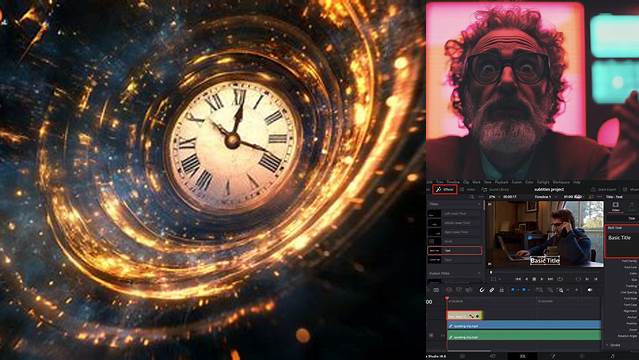
Install Fonts In DaVinci Resolve 19: A Step-by-Step Guide
Adding custom fonts to DaVinci Resolve 19 can significantly enhance your video editing projects, allowing you to create unique and visually appealing titles, lower thirds, and graphics. In this comprehensive guide, we will walk you through the step-by-step process of installing fonts on your operating system and making them accessible within DaVinci Resolve 19. We'll also cover troubleshooting tips and best practices for managing your fonts effectively. So, if you're ready to elevate your video editing game with personalized typography, let's dive in!
Why Add Custom Fonts to DaVinci Resolve 19?
Before we get into the how, let's talk about the why. Why should you bother adding custom fonts to DaVinci Resolve 19? The answer is simple: custom fonts can drastically improve the visual appeal and professionalism of your video projects. Think about it – the default fonts that come with most software are, well, default. They're functional, sure, but they often lack the personality and flair that can make your videos stand out. Adding custom fonts allows you to:
- Create a Unique Brand Identity: Using specific fonts consistently across your projects helps establish a strong brand identity. Whether you're creating content for a business, a YouTube channel, or personal projects, unique typography can make your videos instantly recognizable.
- Enhance Visual Appeal: Different fonts evoke different moods and styles. A clean, modern sans-serif font might be perfect for a corporate video, while a playful script font could be ideal for a vlog or a children's video. By choosing the right font, you can enhance the overall visual appeal of your project and better convey your message.
- Improve Readability: Not all fonts are created equal when it comes to readability. A well-chosen font can make your text clear and easy to read, even in fast-paced videos or when overlaid on busy backgrounds. This is especially important for titles, subtitles, and lower thirds.
- Stand Out from the Crowd: In a sea of videos using the same default fonts, custom fonts can help you stand out and grab your audience's attention. This is crucial for making a lasting impression and keeping viewers engaged.
- Access a Wider Range of Styles: DaVinci Resolve 19 comes with a decent selection of fonts, but it's just the tip of the iceberg. By adding custom fonts, you gain access to a vast library of styles, from elegant and classic to bold and modern, allowing you to find the perfect font for any project.
So, now that you understand the importance of custom fonts, let's get to the nitty-gritty of how to add them to DaVinci Resolve 19. Trust me, guys, it's easier than you might think!
Step-by-Step Guide to Adding Fonts to DaVinci Resolve 19
The process of adding fonts to DaVinci Resolve 19 involves two main steps: installing the font on your operating system and then ensuring that DaVinci Resolve recognizes it. Here's a detailed breakdown of each step:
Step 1: Download and Install Your Desired Fonts
- MyFonts: A large marketplace for both free and premium fonts.
- Creative Market: Offers a wide variety of fonts, graphics, and other design resources, often with unique and creative options.
Once you've found a font you like, download it to your computer. Fonts typically come in one of two file formats:
- TTF (TrueType Font): The most common font format, compatible with both Windows and macOS.
- OTF (OpenType Font): A more advanced font format that offers better support for complex typography features.
Both TTF and OTF fonts work well with DaVinci Resolve 19, so don't worry too much about the format. Once you've downloaded the font file (it's usually in a ZIP archive), follow these steps to install it on your operating system:
On Windows:
- Extract the ZIP archive: Right-click on the downloaded ZIP file and select "Extract All..."
- Locate the font files: Open the extracted folder and find the TTF or OTF font files.
- Install the font: There are two ways to install the font:
- Method 1: Right-click on the font file and select "Install".
- Method 2: Double-click on the font file to open a preview window, then click the "Install" button at the top.
- Wait for the installation to complete: Windows will install the font, and it will be available for use in all your applications.
On macOS:
- Extract the ZIP archive: Double-click on the downloaded ZIP file to extract its contents.
Adding custom fonts to DaVinci Resolve 19 is a fantastic way to personalize your video projects and create a unique visual identity. By following the steps outlined in this guide, you can easily install new fonts and use them to enhance your titles, graphics, and more. Remember to troubleshoot any issues that arise and follow best practices for managing your fonts effectively. With a little effort, you can build a font library that will inspire your creativity and help you produce stunning videos that stand out from the crowd. So go ahead, guys, and get font-astic!